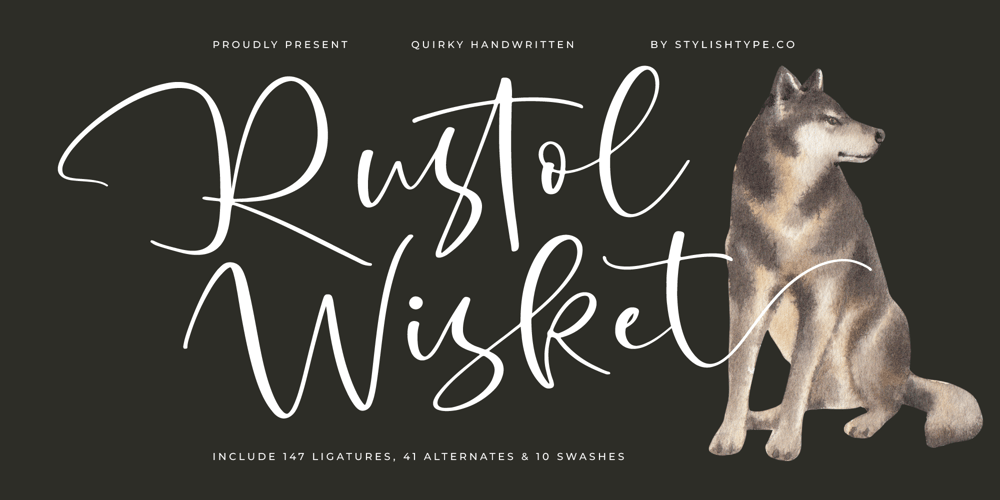
Rustol Wisket
Rustol Wisket font
Rustol Wisket Font Family was designed by Heru Utama Putra and published by Stylishtype Studio. Rustol Wisket contains 2 styles and family package options. Rustol Wisket – Quirky Handwritten , from Stylishtype , Suitable for any projects such as: logos, branding projects, homeware designs, product packaging, mugs, quotes, posters, shopping bags, t-shirts, book covers, name card, invitation cards, greeting cards, label, photography, watermark, special events, and all your other luxury and beautiful projects that need a Luxury Script taste.